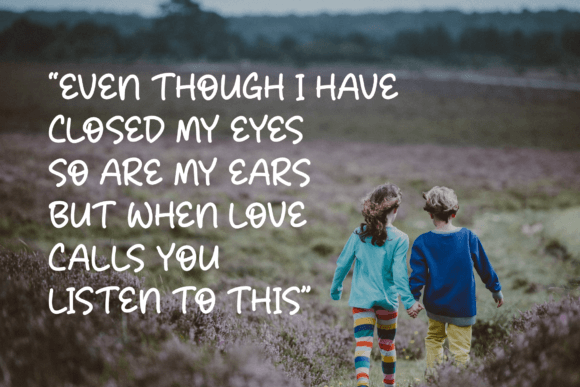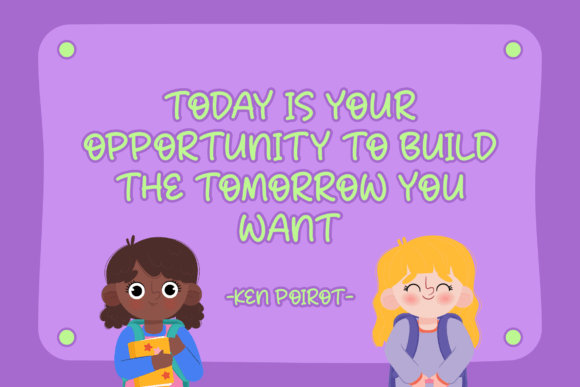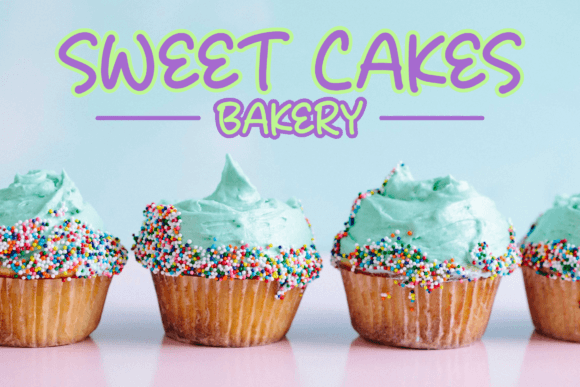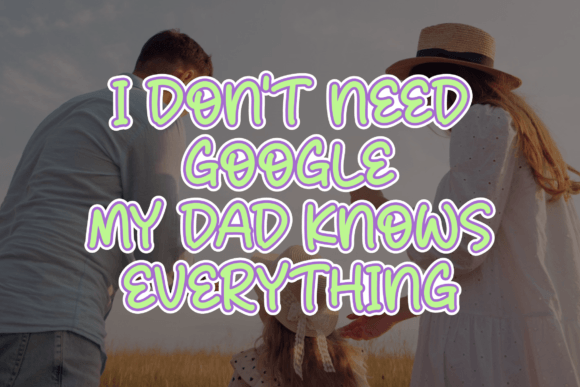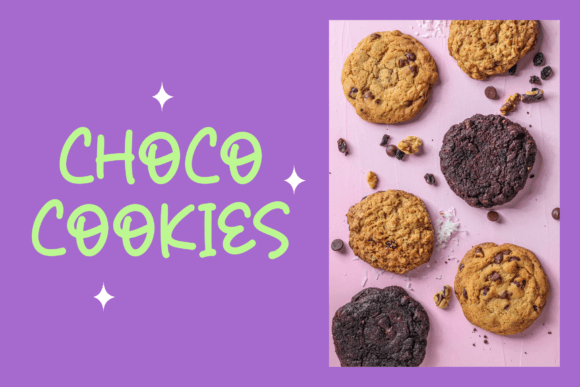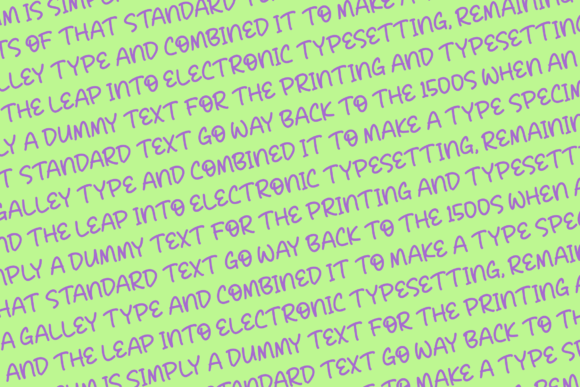
Introducing Children Twiny Font: The Ultimate Playful Companion for Designers and Crafters
Are you on the hunt for a font that adds a touch of whimsy and fun to your designs? Look no further than Children Twiny, a delightful handwritten font that’s perfect for a variety of creative projects. Whether you’re a designer, crafter, or simply someone who loves to get creative, Children Twiny is sure to become your new favorite go-to font.
What is Children Twiny Font?
Children Twiny is a fun and playful handwritten font that’s designed to bring a smile to your face. With its unique and quirky lettering style, this font is perfect for adding a personal touch to your designs. Whether you’re creating digital art, crafting handmade cards, or designing presentations, Children Twiny is the perfect choice.
Features of Children Twiny Font
So, what makes Children Twiny font so special? Here are just a few of its standout features:
- Handwritten style: Children Twiny has a beautifully handwritten style that’s perfect for creating personal and unique designs.
- Playful and fun: This font is designed to be fun and playful, making it perfect for projects that require a lighthearted touch.
- Versatile: Children Twiny is versatile enough to be used for a wide range of projects, from digital design to crafting and making greeting cards.
- Easy to read: Despite its playful style, Children Twiny is easy to read, making it perfect for use in body text or headings.
Uses for Children Twiny Font
So, what can you use Children Twiny font for? The possibilities are endless! Here are a few ideas to get you started:
- Crafts: Use Children Twiny to add a personal touch to your handmade crafts, such as cards, gift tags, and scrapbook pages.
- Digital design: Add a playful touch to your digital designs, such as social media graphics, blog posts, and presentations.
- Greeting cards: Use Children Twiny to create unique and personalized greeting cards for special occasions.
- Invitations: Create playful and fun invitations for parties, events, and other gatherings.
Tips for Using Children Twiny Font
Here are a few tips for getting the most out of Children Twiny font:
- Use it sparingly: While Children Twiny is a fun and playful font, it can be overwhelming if used too much. Use it sparingly to add a touch of whimsy to your designs.
- Pair it with other fonts: Children Twiny pairs well with other fonts, such as sans-serif fonts or script fonts. Experiment with different pairings to find the perfect combination.
- Experiment with colors: Children Twiny looks great in a variety of colors, from bright and bold to soft and pastel. Experiment with different colors to find the perfect look for your design.
In conclusion, Children Twiny font is a fun and playful handwritten font that’s perfect for designers, crafters, and anyone who loves to get creative. With its unique and quirky lettering style, this font is sure to add a touch of whimsy to your designs. Whether you’re creating digital art, crafting handmade cards, or designing presentations, Children Twiny is the perfect choice. So why not give it a try and see what amazing creations you can come up with?
With its versatility, playfulness, and ease of use, Children Twiny font is sure to become your new favorite go-to font. So go ahead, get creative, and have fun with Children Twiny!